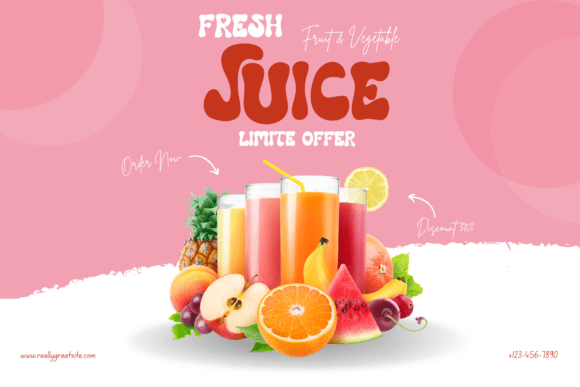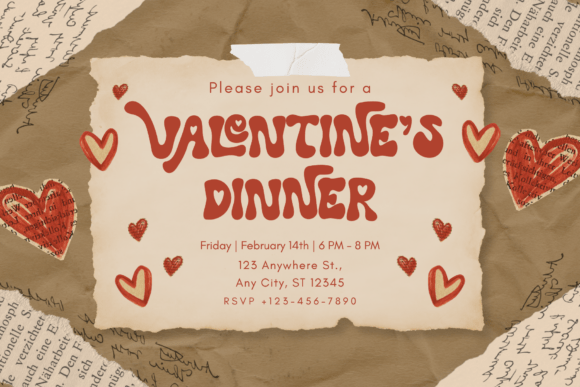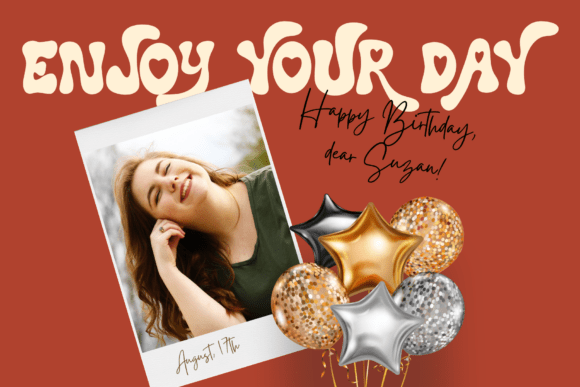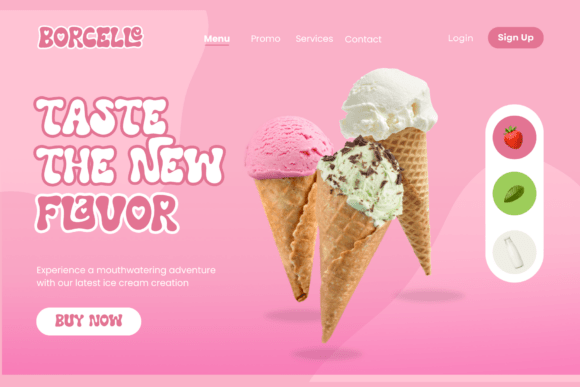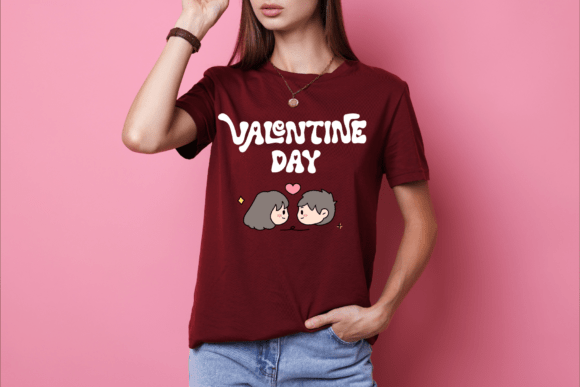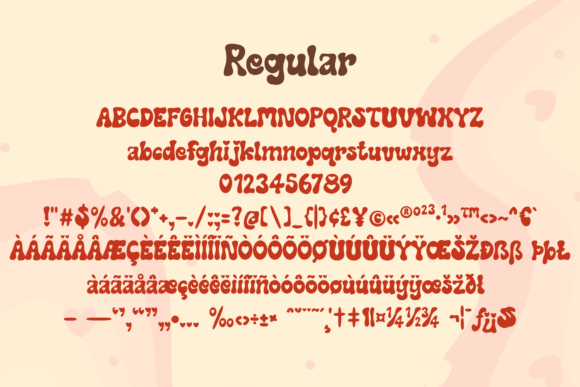
Introduction to Retro Lovey Font
Retro Lovey is a Valentine’s Day display font.
It embodies playfulness and authenticity and is the perfect choice for all your favorite projects, or even for blog posts, logos, branding, ads, invitations, greeting cards, planners, photo albums, decorations, and much more Add it to any of your designs, and enjoy the results.
Key Features of Retro Lovey Font
Why Choose Retro Lovey Font?
Retro Lovey Font offers exceptional quality and versatility, making it a valuable addition to your design toolkit. Whether you’re creating for personal projects or commercial use, Retro Lovey Font delivers professional results.